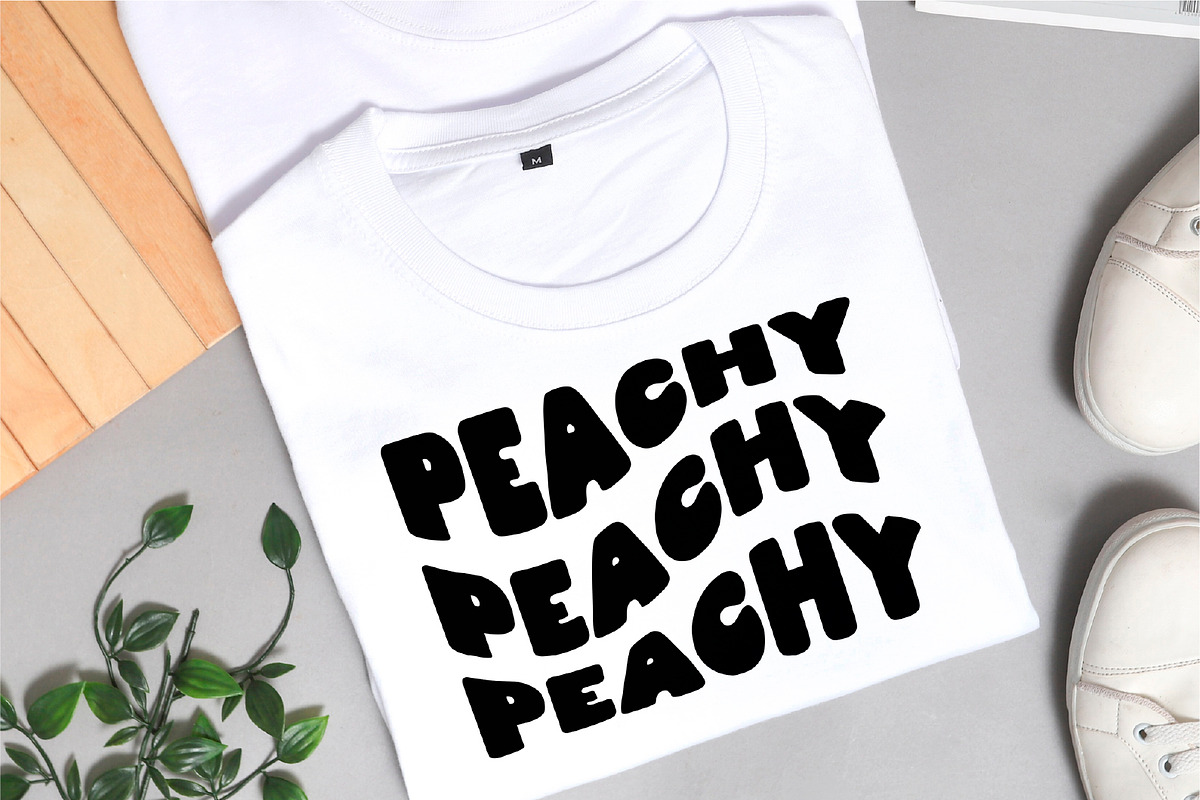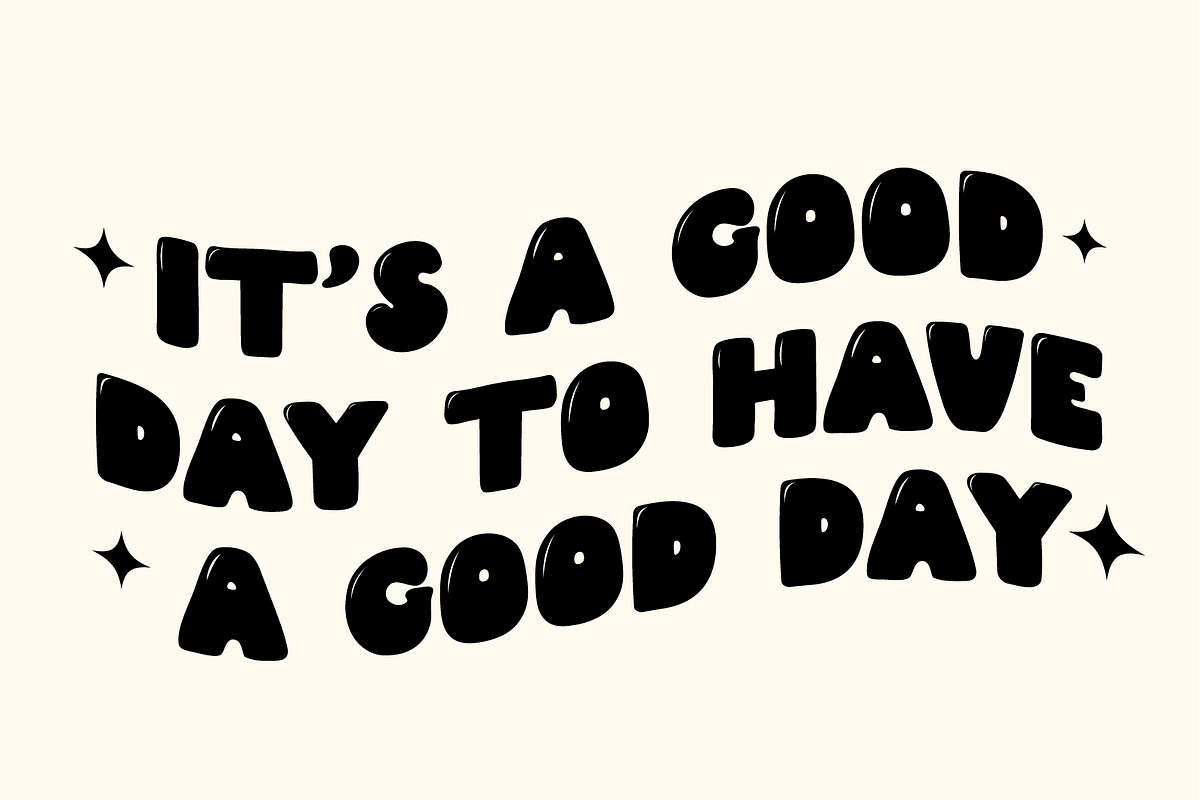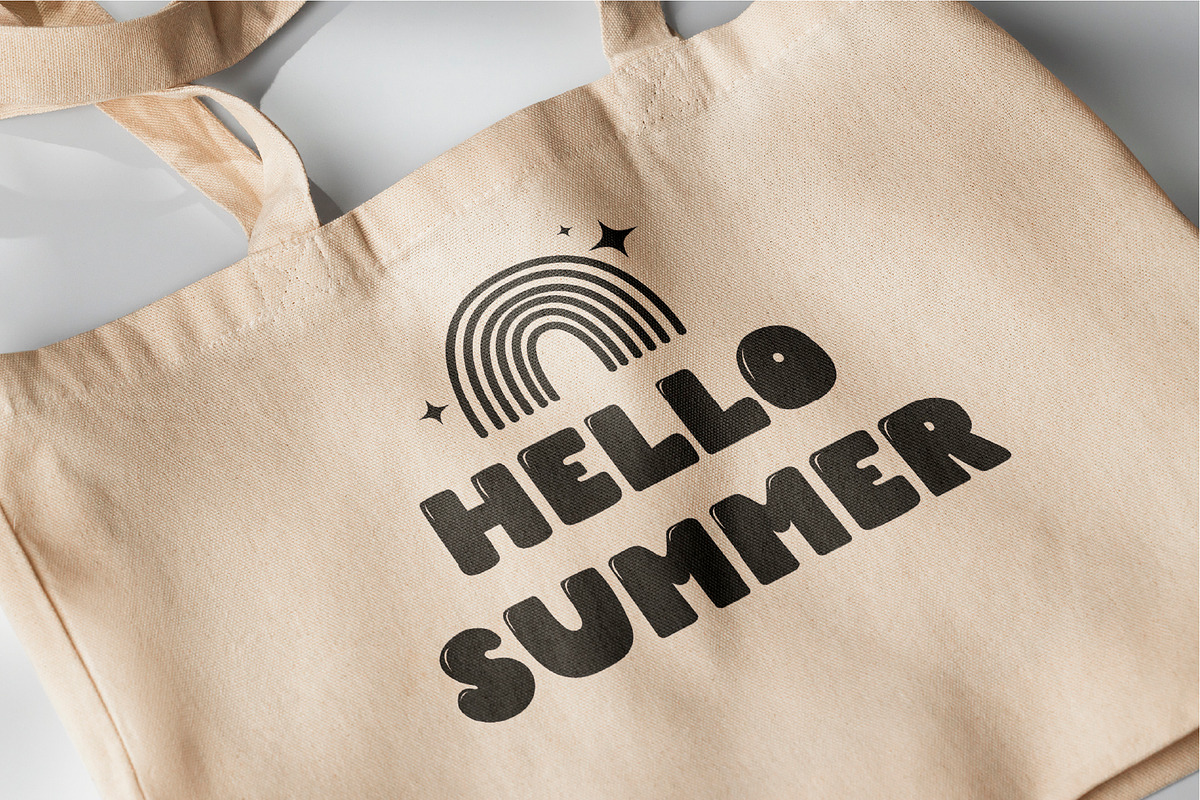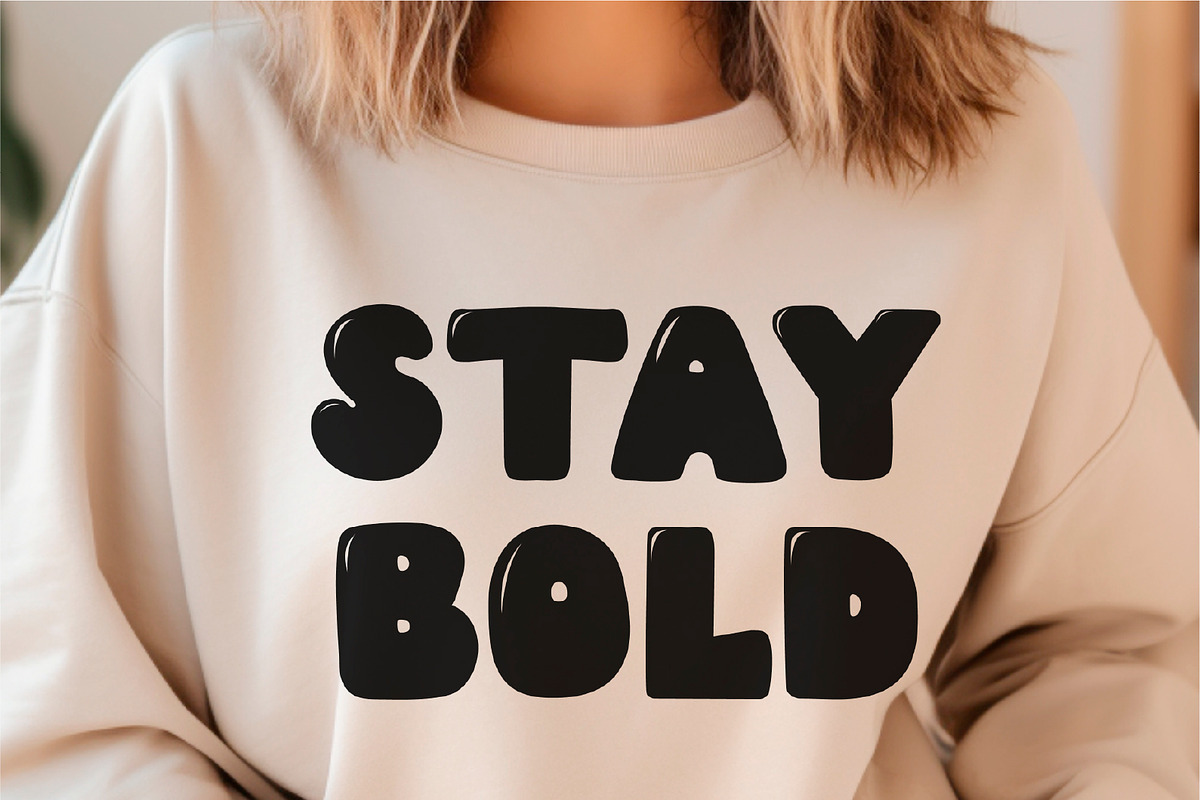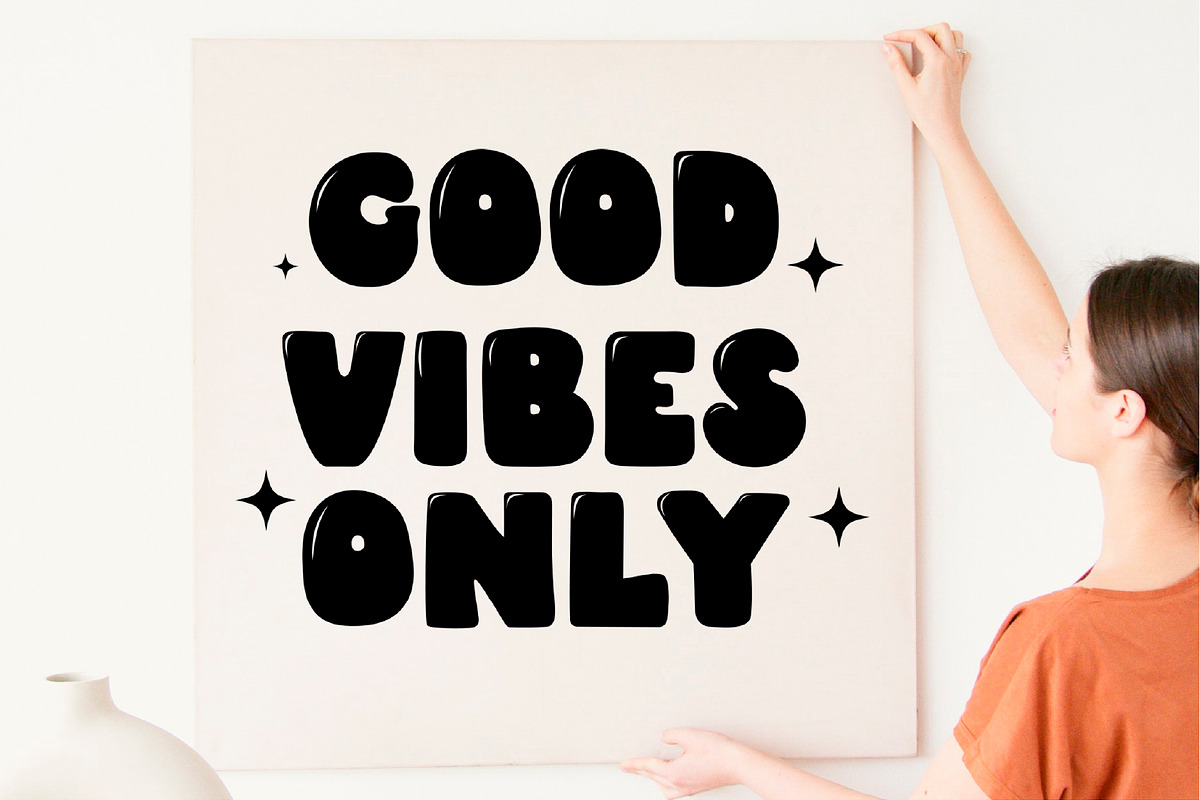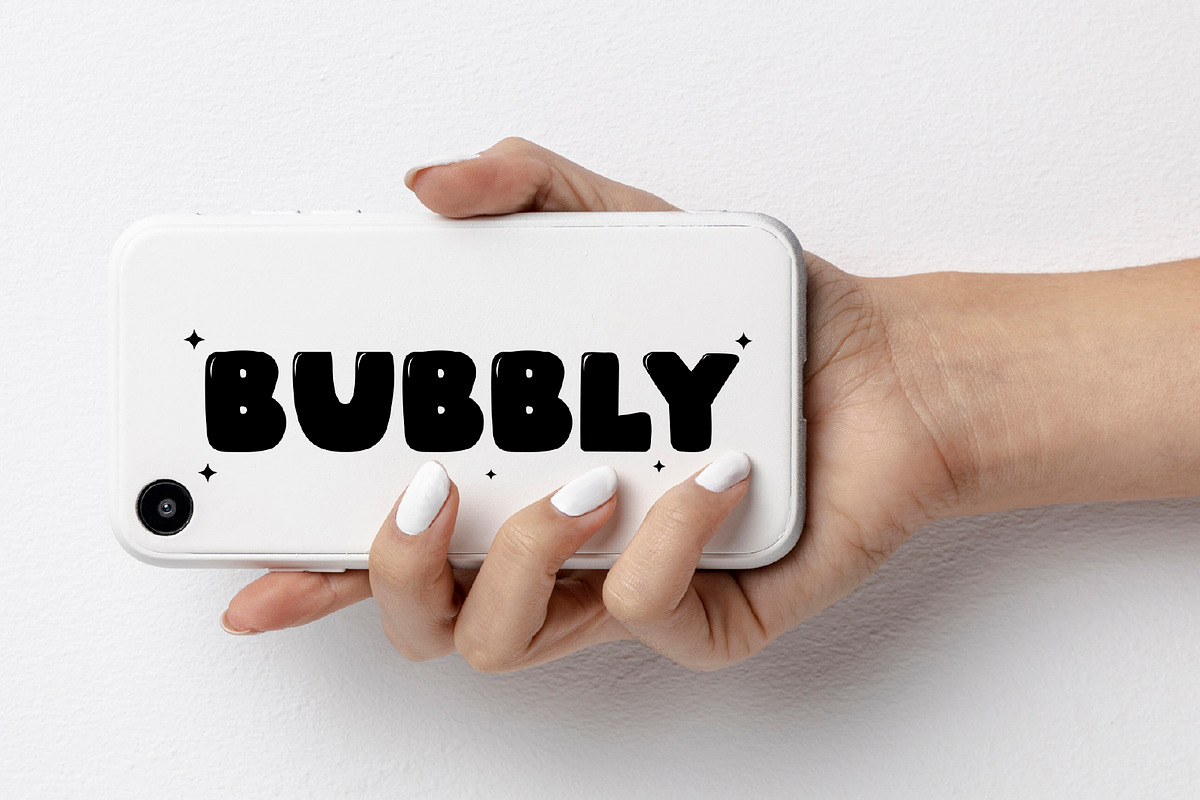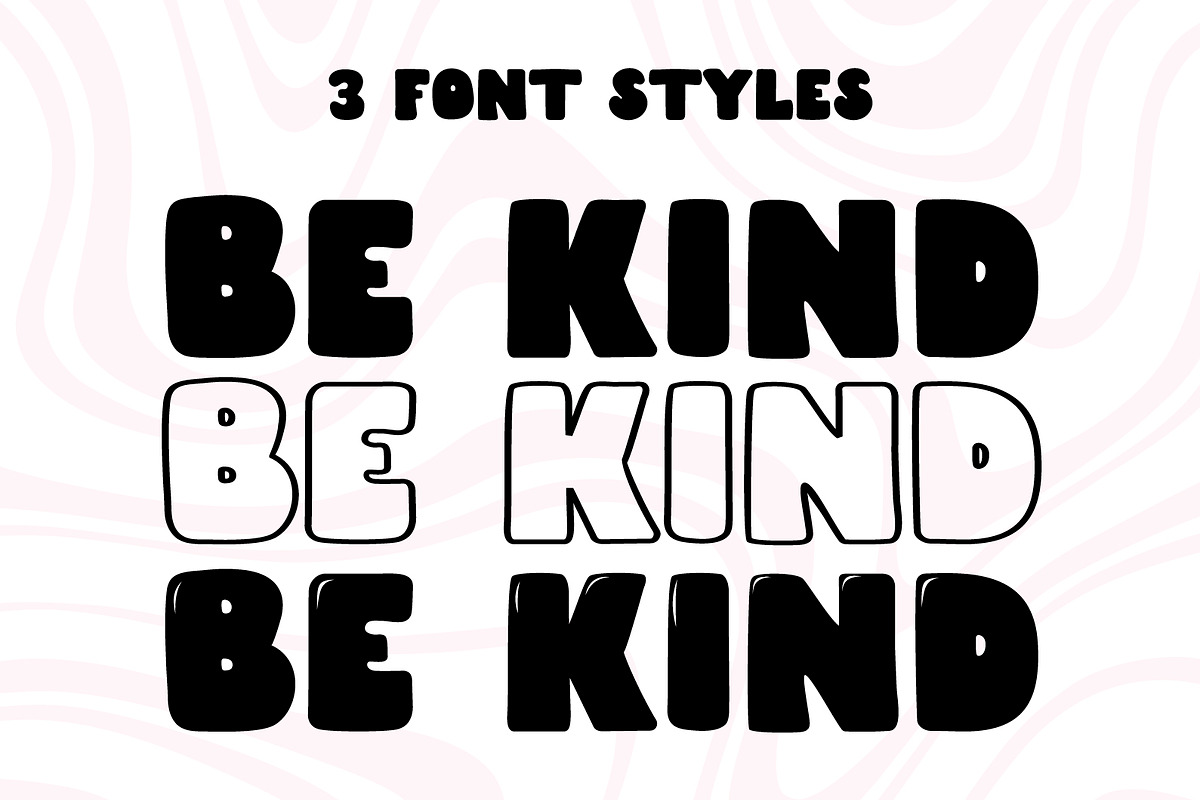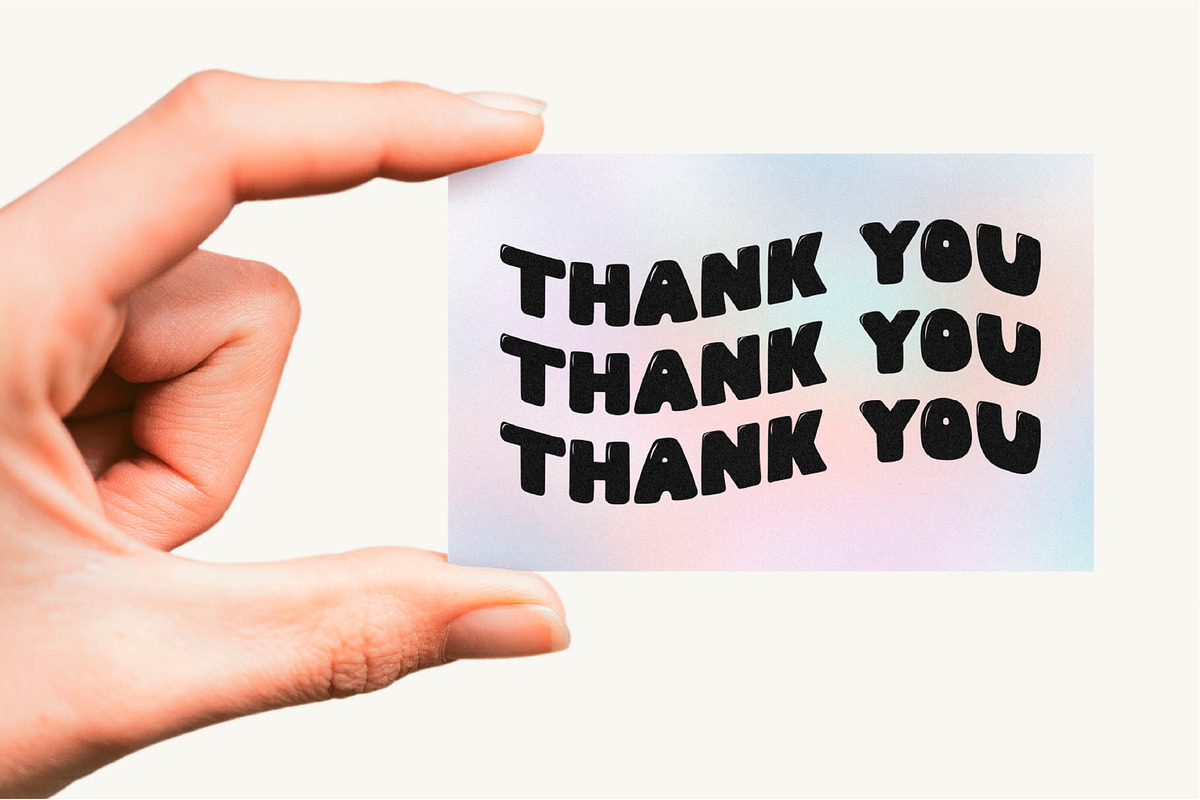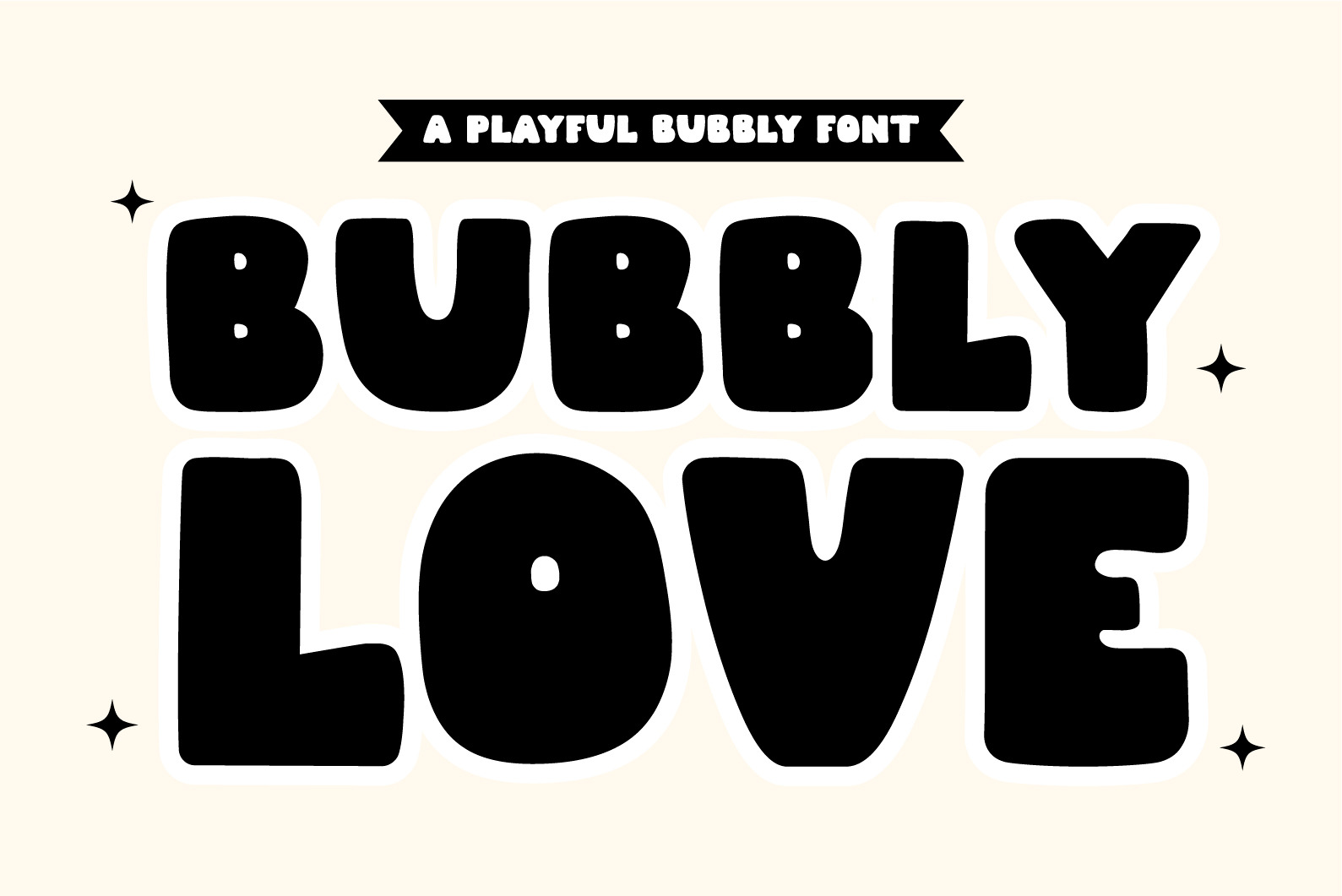
Bubbly Love A Playful Bubbly Font
Introducing our adorable and versatile Cute and Chunky Font, now available in three fabulous styles - Regular, Outlined, and Shining! This font is the perfect blend of cuteness and boldness, making it a must-have for all your design needs.
In the Regular style, each letter is delicately crafted with a chunky and rounded appearance, giving your designs a playful and charming touch. It's perfect for creating eye-catching headlines, logos, and branding materials with a whimsical twist.
The Outlined style takes the cuteness factor to the next level by adding a stroke outline to each letter, creating a fun and dynamic effect. This style is ideal for creating attention-grabbing titles, posters, and social media graphics that demand a second look.
For those who want to add a touch of magic and sparkle, the Shining style is the perfect choice. Each letter in this style is adorned with a shimmering effect, giving it a unique and dazzling appearance. It's ideal for creating invitations, greeting cards, and anything that needs a touch of glamour.
Whichever style you choose, this Cute and Chunky Font is sure to bring a smile to your face and captivate your audience. Don't miss out on the chance to add this versatile font to your design toolkit and let your creativity shine!